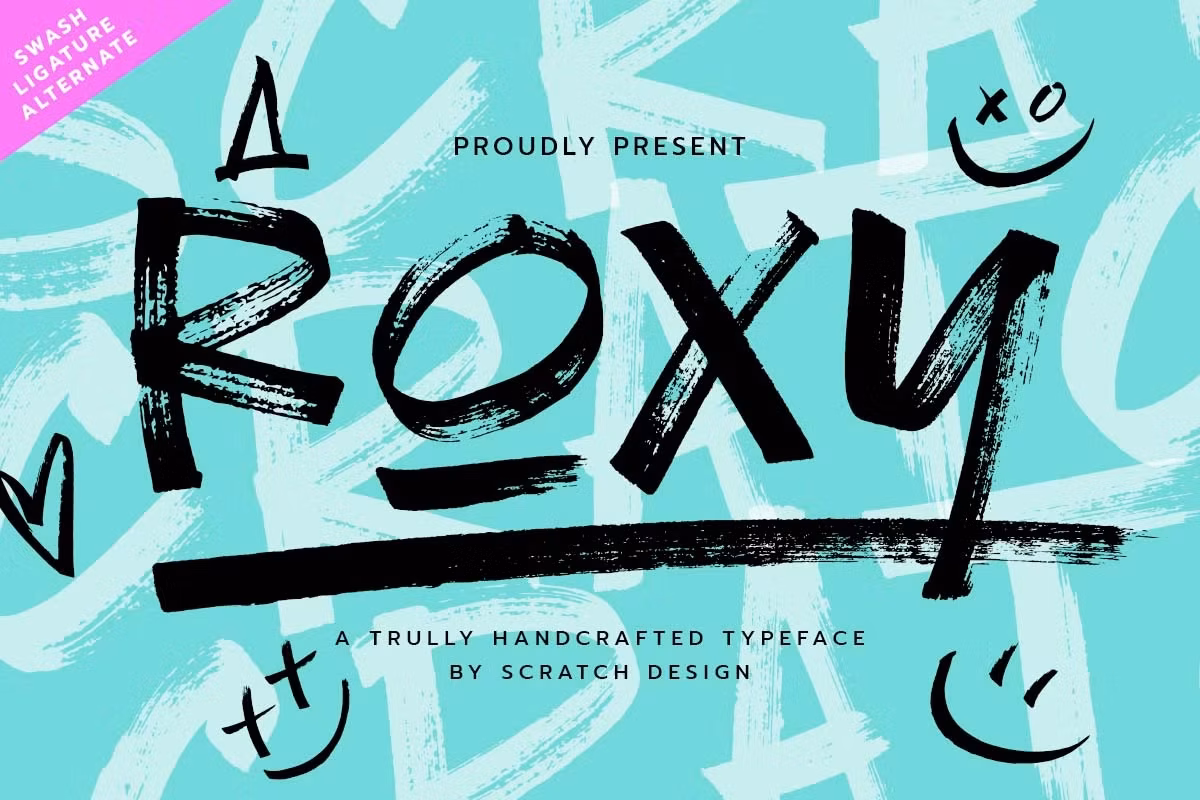
Roxy Marker Font Free Download
Roxy Marker Font Free Download is a playful and dynamic handwritten typeface designed to give your designs a fresh, creative look. With its bold strokes and organic feel, this font mimics the texture of a marker, making it perfect for projects that need a fun, casual, and artistic touch. It's great for everything from social media posts to posters, logos, t-shirts, and greeting cards.
The font’s natural flow and slightly imperfect design give it a personal, human quality, making it ideal for personal branding, invitations, and any creative work where you want to convey a sense of energy and spontaneity.